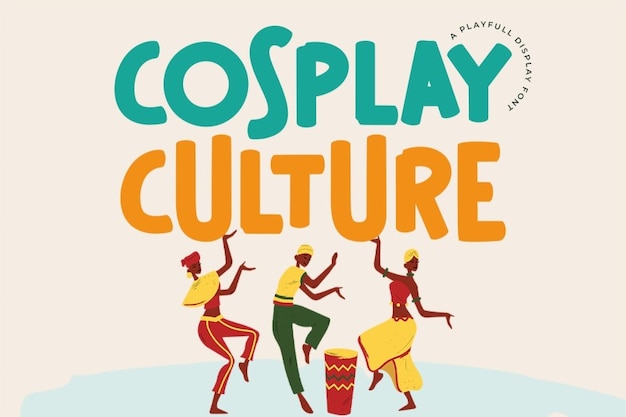
Cosplay Culture Font
Masa Fonts
Cosplay Culture is the font that embodies the spirit of creativity, with every letter handcrafted like a masterpiece. It's handwritten with a flair for the decorative, like a costume designer's sketch brought to life. This font is the perfect choice for projects that need a dash of imaginative charm, whether it's crafting eye-catching posters, creating playful signage, or any design that craves a touch of creative wonder. Cosplay Culture is like the font that transforms your text into a work of art, as if every letter was designed by a skilled cosplayer. It's handwritten with the spirit of creativity, ready to add a playful and decorative vibe to your designs.